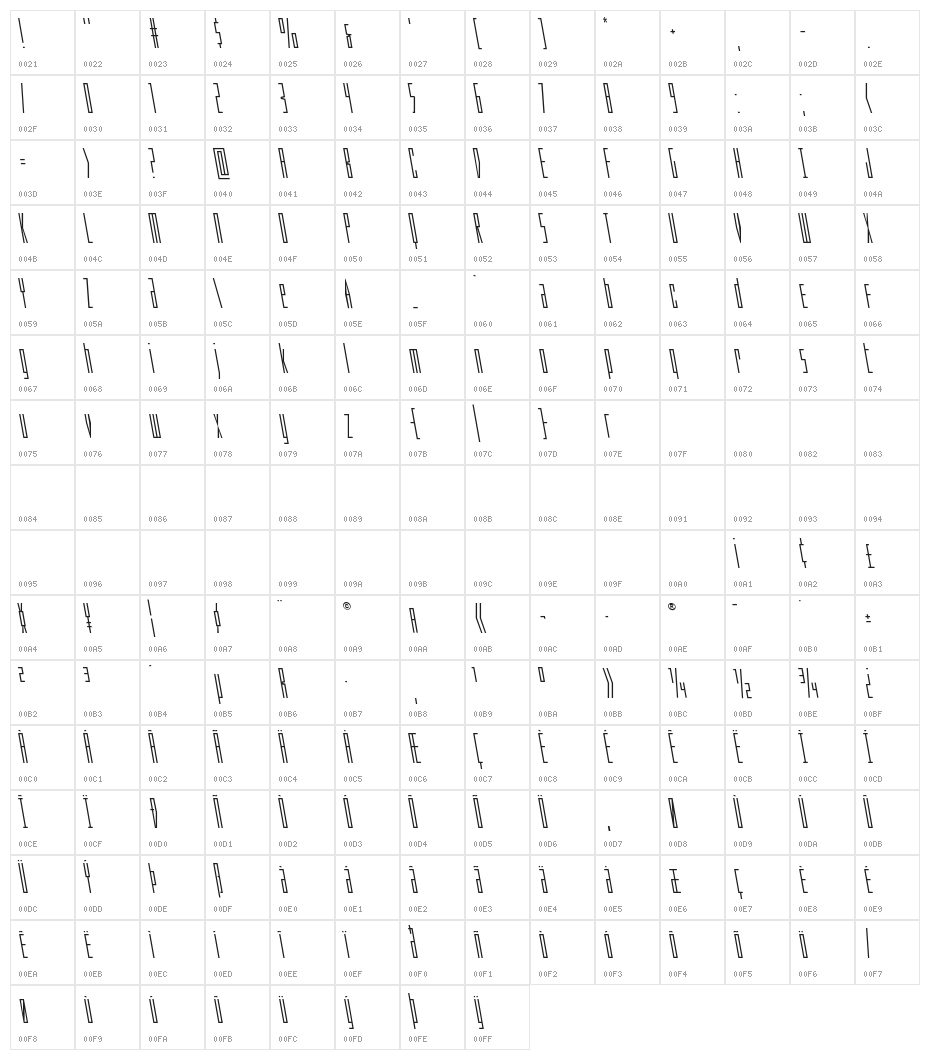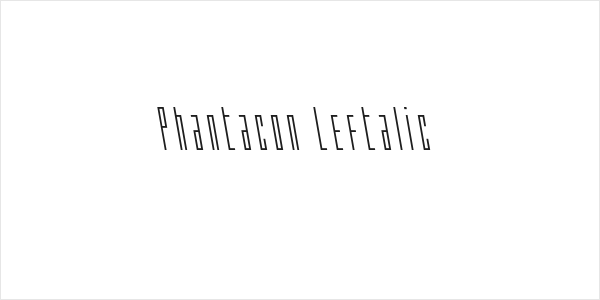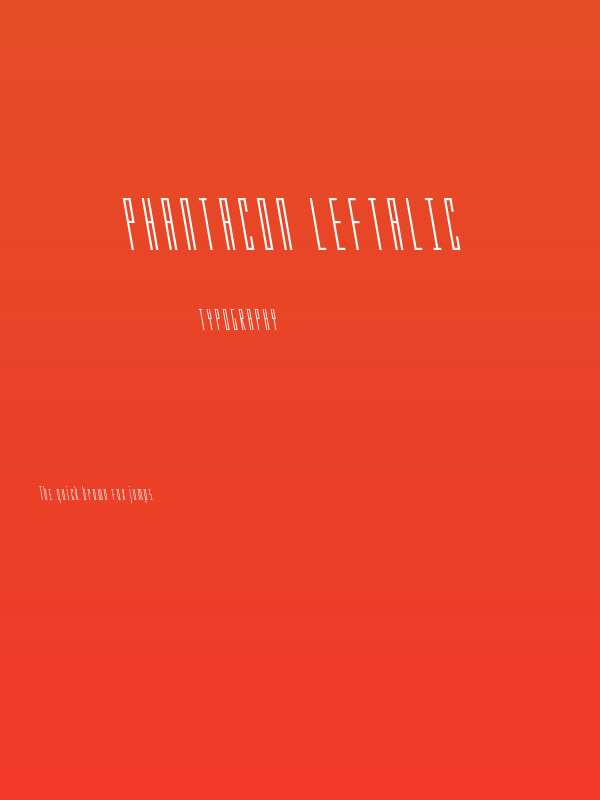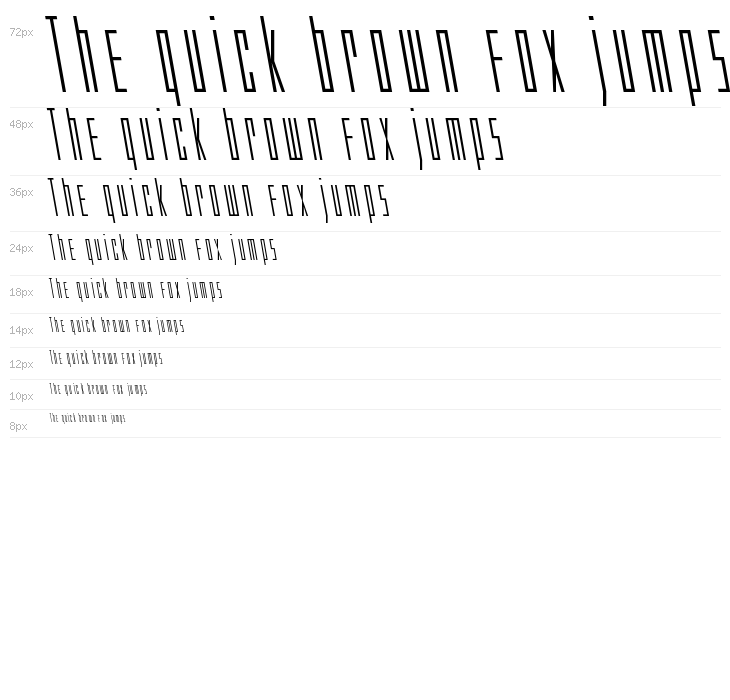
Phantacon Leftalic Font
Phantacon Leftalic Description
This font features a distinctive, angular design with a leftward slant, giving it a dynamic and futuristic appearance. The characters are tall and narrow, with consistent stroke thickness that maintains a sleek and modern aesthetic. The uppercase and lowercase letters share a uniform height, creating a cohesive look. The numerals and special characters follow the same angular style, ensuring visual harmony across all elements. This font's unique style makes it suitable for projects that require a bold and innovative touch.
| Proposed Projects | Ideal for sci-fi themed projects, tech branding, futuristic posters, and innovative product packaging. |